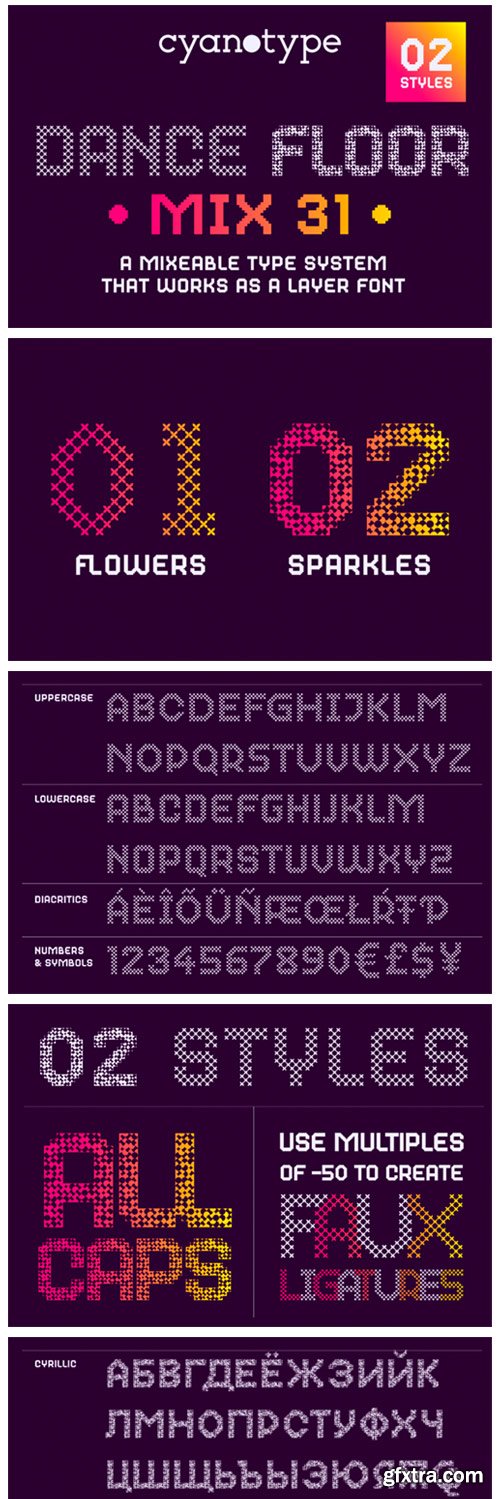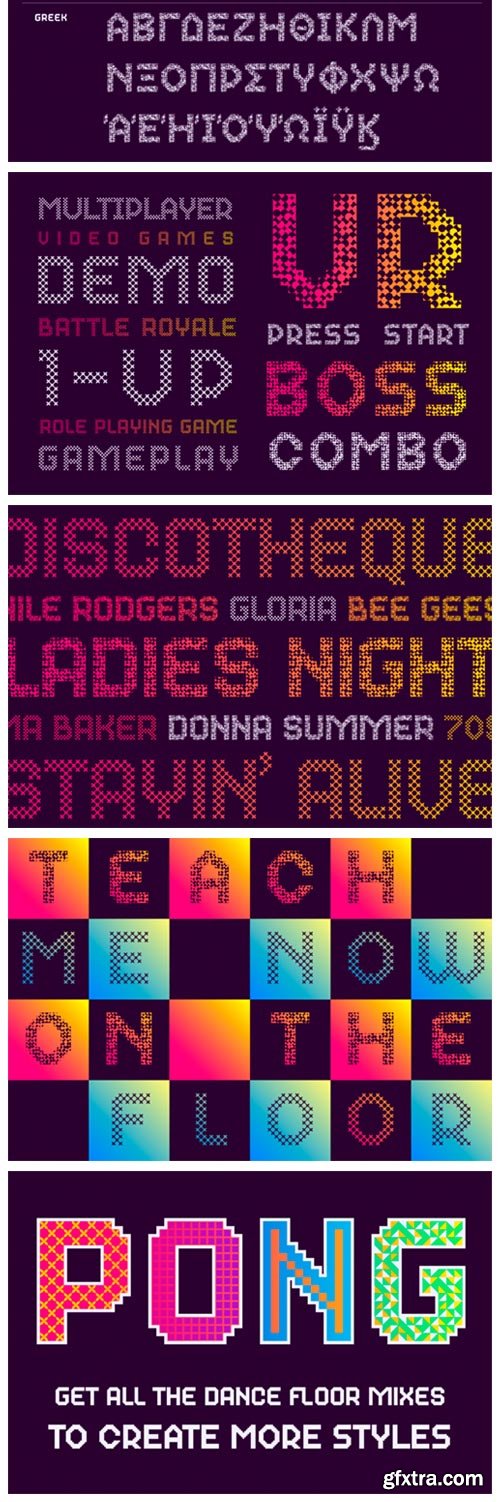
Dance Floor Mix 31 Font
Dance Floor Mix 31 is a fusion of display fonts, bitmap fonts, layer fonts and geometric pattern systems. A bold font for maximalist compositions.The styles allow to mix and match to create multiple versions. This mix contains 2 of 64 styles. Use them along with all the Dance Floor Mixes.